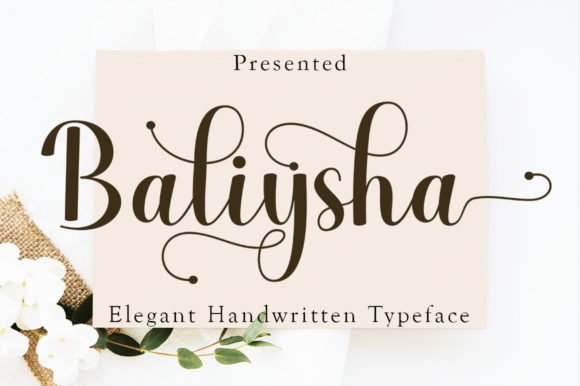
Discover the Elegance of Baliysha Font
Have you ever been scrolling through your social media feeds, and suddenly, a beautifully crafted post catches your eye? Maybe it’s a wedding invitation, a logo for a new business, or a stunning quote that makes you stop and stare. As a designer, you know that the key to creating such captivating visuals lies in the choice of typography. That’s where Baliysha Font comes in – a refined script font that exudes class and sophistication.
Baliysha Font is the perfect tool for designers who want to add a touch of elegance to their work. With its modern look and feel, it can be used for a wide range of projects, from logos and branding to invitations and wedding designs. And with its PUA encoding, accessing all glyphs and swashes is a breeze, giving you endless creative possibilities. Whether you’re a seasoned pro or just starting out, Baliysha Font is a valuable addition to any designer’s toolkit.
Baliysha Font Key Features
- Font Style: Script, Decorative, Handwritten
- Unique Characteristics: Hand-drawn, cursive design with a unique, elegant feel, suitable for creative projects and branding
Baliysha Font Review
I recently had the chance to work with the Baliysha font, and I must say it’s an interesting addition to any design project. Here’s my honest take on what works well and what doesn’t:
- The Baliysha font has a unique, elegant feel to it. Its curved lines and subtle flourishes make it perfect for adding a touch of sophistication to headings and titles.
- It’s highly legible, even at smaller font sizes, making it suitable for body text as well.
- The font’s versatility lies in its ability to adapt to various design styles, from modern to vintage.
- The Baliysha font may not be the best choice for digital screens, as it can appear slightly pixelated and fuzzy at certain resolutions.
- The font’s complexity may lead to difficulties in pairing it with other fonts, as its unique characteristics can be challenging to match.
The Baliysha font is a great choice for designers who want to add a touch of elegance and sophistication to their projects. While it may have some limitations, its unique qualities make it a great addition to any design portfolio. With some careful consideration and experimentation, I’m sure you’ll find the Baliysha font to be a valuable asset in your design workflow.
Tips for Getting the Most Out of the Baliysha Font
Use the Baliysha font to create elegant and sophisticated designs.
Pair the font with bold and geometric shapes to add contrast and visual interest.
Experiment with different font sizes and styles to achieve a unique look.
The Baliysha font is ideal for:
Business cards and marketing materials
Editorial and publishing projects
Alternatives to Baliysha Font for Designers
The Great Vibes Font is a beautiful, elegant script font that is perfect for creating a luxurious and sophisticated look. It is ideal for use in high-end branding, wedding invitations, and special occasion graphics. Compared to Baliysha Font, Great Vibes Font has a more refined and polished look, making it suitable for more formal applications.
Pacifico Font is a stylish and modern script font that is great for creating a relaxed and beachy vibe. It is perfect for use in travel and tourism branding, outdoor and adventure graphics, and summer-themed designs. Compared to Baliysha Font, Pacifico Font has a more casual and laid-back feel, making it suitable for applications that require a fun and carefree atmosphere.
Carolyna Pro Font is a elegant and sophisticated script font that is perfect for creating a luxurious and high-end look. It is ideal for use in premium branding, fashion and beauty graphics, and special occasion designs. Compared to Baliysha Font, Carolyna Pro Font has a more refined and polished look, making it suitable for more formal and upscale applications.
We recommend using the Baliysha font at a minimum size of 12 points, with a line height of at least 1.5 times the font size. This will ensure optimal readability and maintain the font’s intended aesthetic.